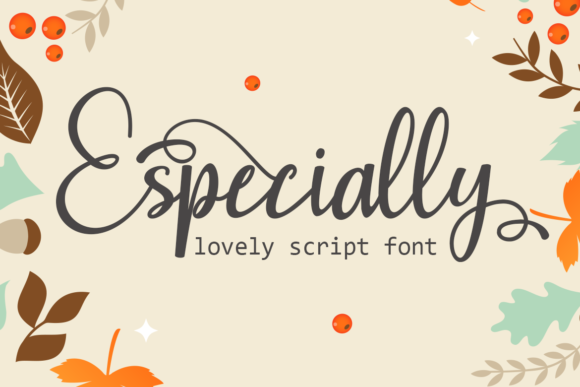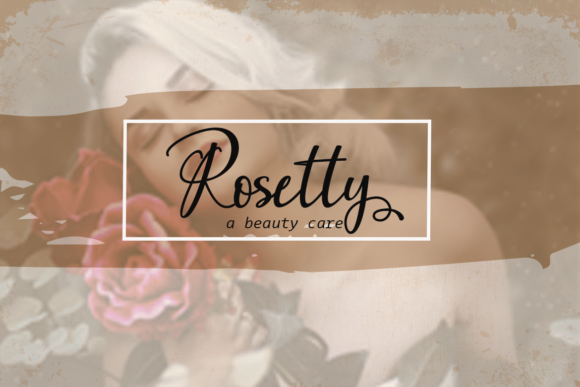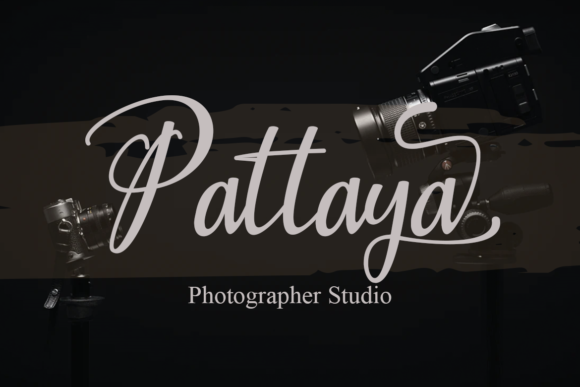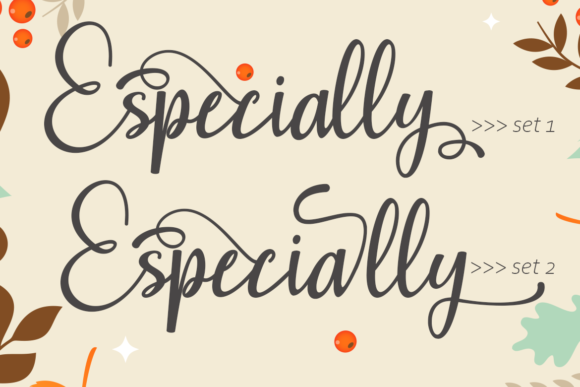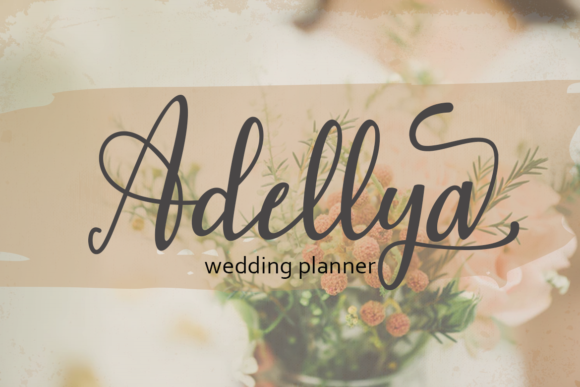
About Especially Font
Especially is a ravishing handwritten font that is designed to elevate your creative projects to new heights. With its unique and captivating style, this font has the potential to become a true favorite among designers.
The beauty of Especially lies in its intricate details and carefully crafted characters. Each letter has been meticulously designed to showcase its own distinct personality, resulting in a font that is both visually stunning and highly readable. Whether you’re working on a logo, branding materials, invitations, or any other design project, Especially will add a touch of elegance and sophistication.
One of the standout features of Especially is its extensive set of glyphs and swashes. PUA encoding ensures that you can easily access all of these additional characters, allowing you to customize and embellish your designs with ease. Whether you’re looking for decorative swashes, unique ligatures, or other stylistic variations, Especially has you covered.
The versatility of Especially makes it suitable for a wide range of design purposes. It can beautifully enhance wedding invitations, thank you cards, quotes, greeting cards, logos, business cards, and more. The handwritten touch of Especially adds a personal and authentic feel to your designs, making them truly stand out.
By using Especially, you can unlock the potential of your creative ideas and bring them to the highest level. Its ravishing style and attention to detail make it a font that will captivate your audience and leave a lasting impression. Whether you’re designing for print or digital media, Especially has the power to make your projects shine.
In summary, Especially is a ravishing handwritten font that offers a unique and captivating style for your creative projects. With its extensive set of glyphs and swashes, you have the flexibility to customize and embellish your designs. Embrace the beauty of Especially and let it elevate your creations to new heights.